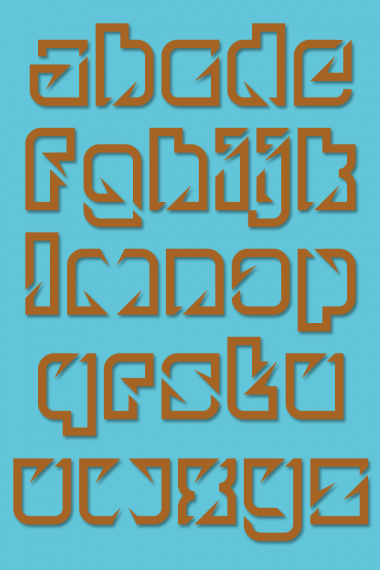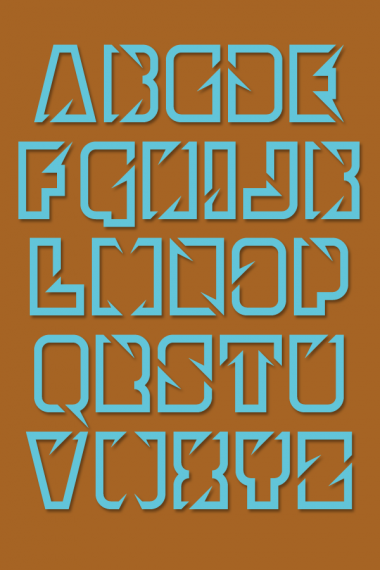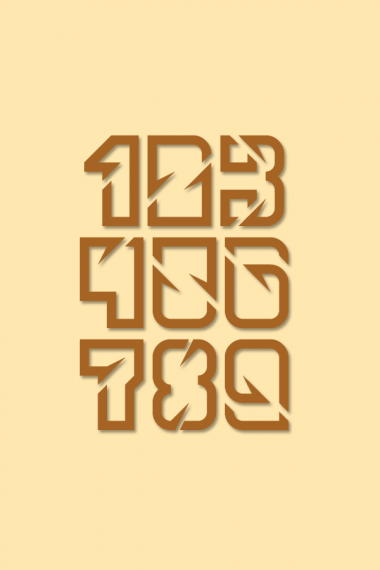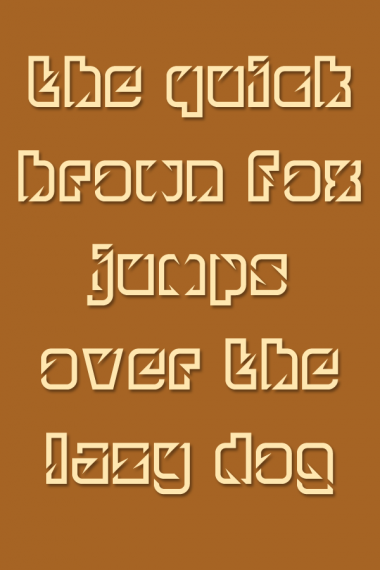
another stunner!
The shard bricks used to awesome effect.
Elegant and strong design.
I imagine the next Daft Punk single has its title typeset in that... Nice retro character, yet very original.
Sharp and eye-catching! Like shards of glass.
The sides of M/m/W/w seem like they're a bit far away from each other though, they could be closer together, or there middle part could be redesigned. Diagonals might also work better for V/v.
Great font! Congrats! And I'm with Yautja about these glyphs.
Thanks for the suggestions Yautja and elmoyenique, I'll change v and V straight away and will rethink m/M/w/W.
m/M/w/W updated.
The more I look at this, the more I am impressed with the uniqueness of the glyphs while maintaining recognizability.
Wow! legible+beauty=this font! 10/10+fav
Yeah, this should become a top pick, for sure.
wow wow wow I love it
great design
this is my favorite of your works